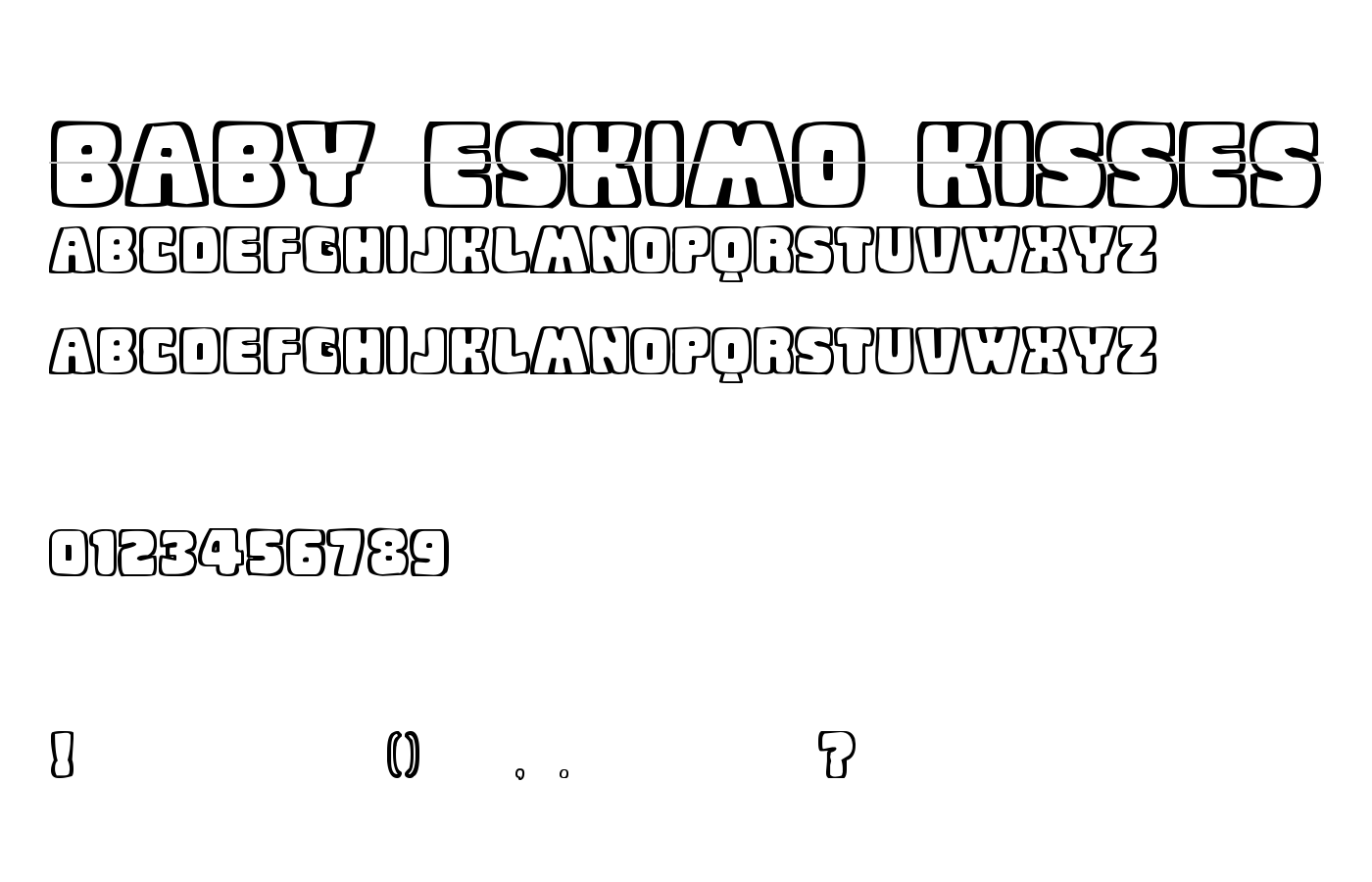
Baby Eskimo Kisses is a fun and playful display font with bold, rounded letterforms that give it a soft, friendly personality. Its chunky, outlined style and uniform weight make it ideal for capturing attention in children's designs, logos, or casual branding where a warm, approachable vibe is desired. This font works best in headlines, posters, and packaging that seek to evoke a sense of whimsy and charm.
Baby Eskimo Kisses Font